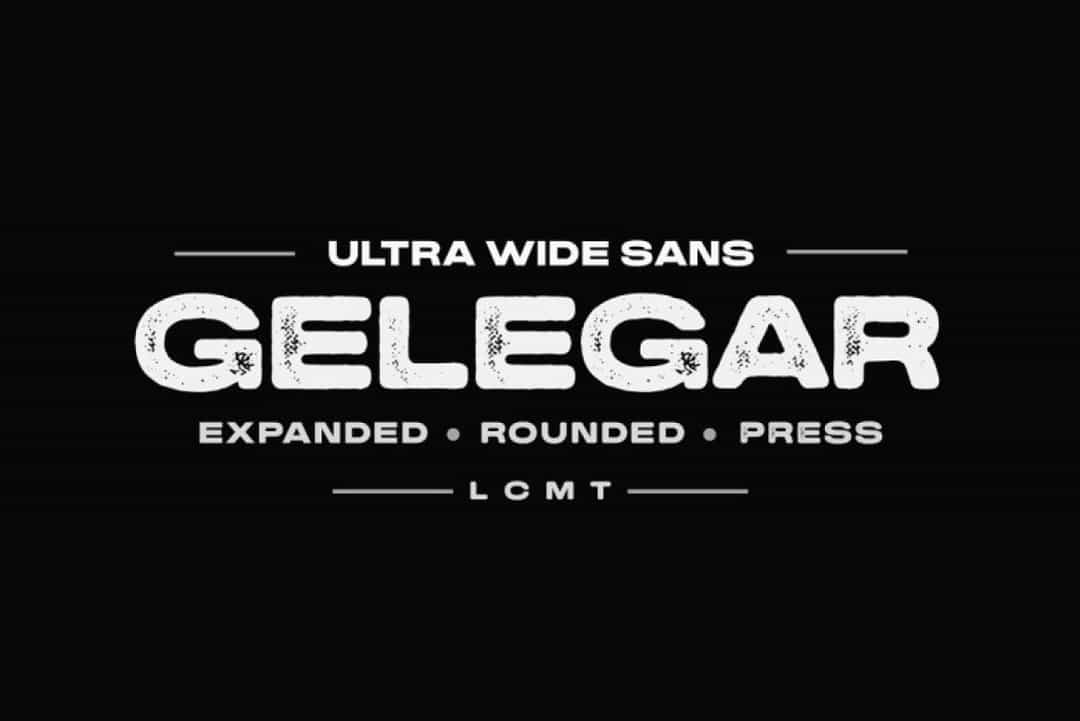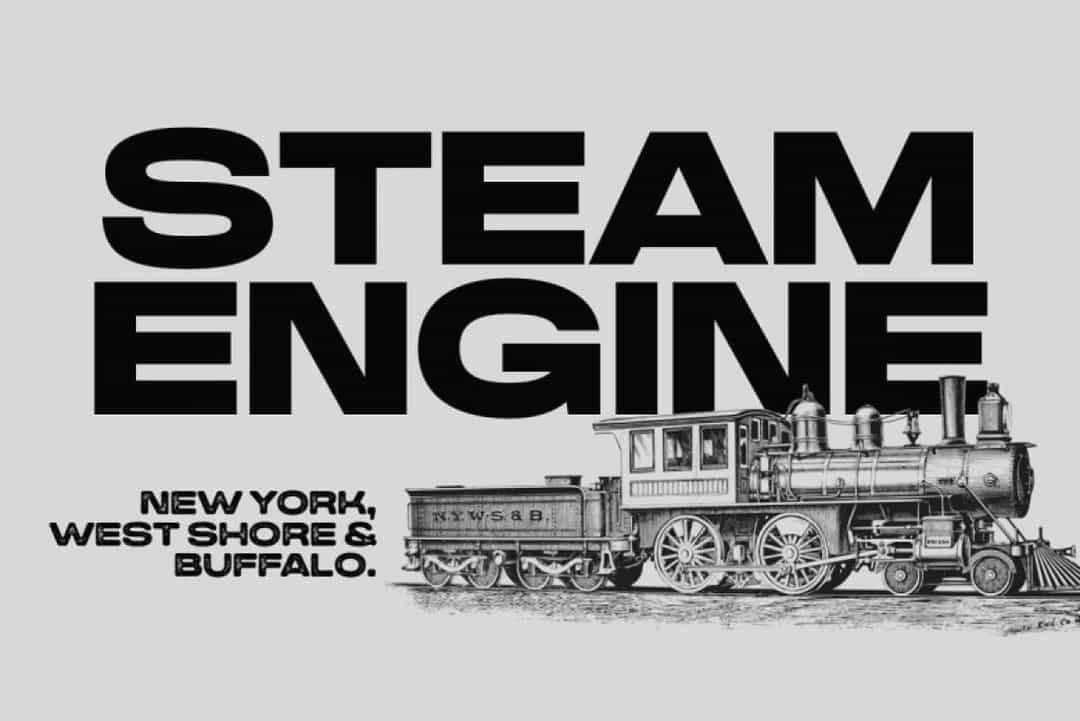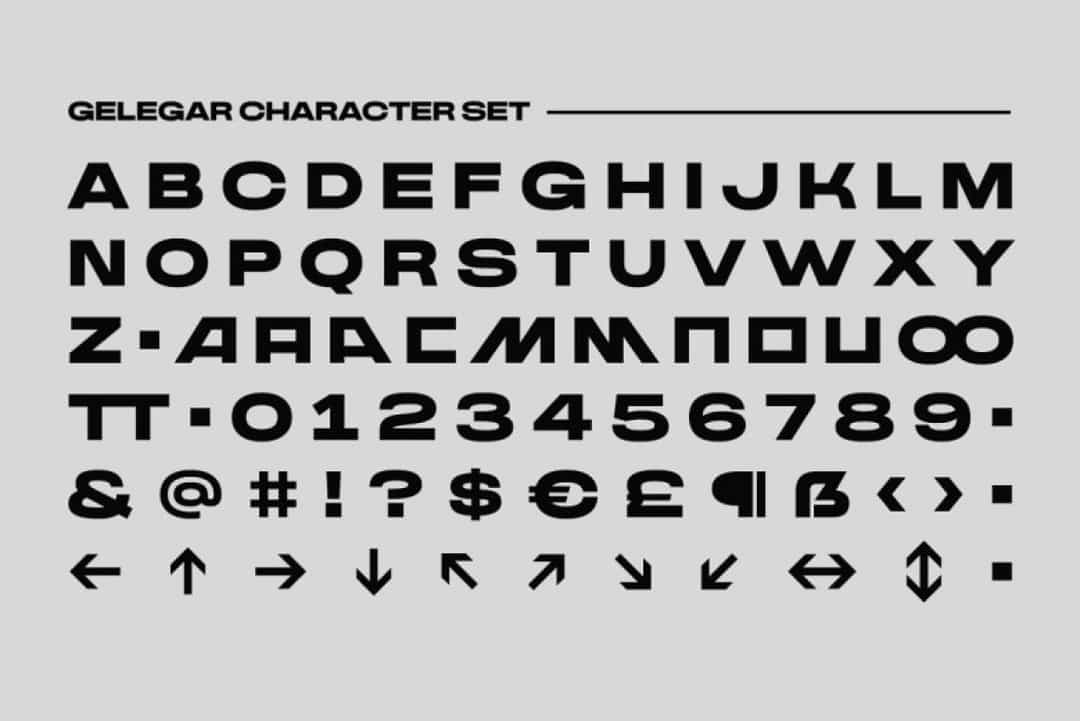
Gelegar is an outstanding ultra-wide sans serif font carefully designed to leave a powerful emotional and visual impression. Comprised of three distinctive styles – extended regular, rounded and press – Gelegar provides you with infinite creative opportunities.